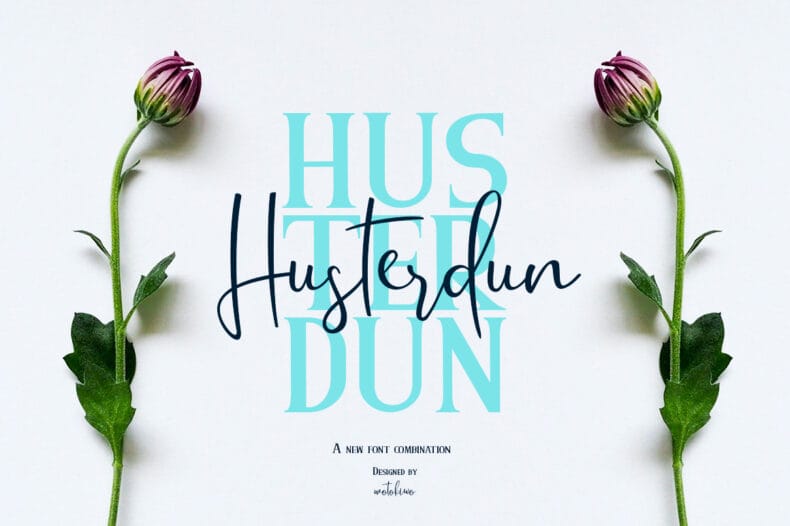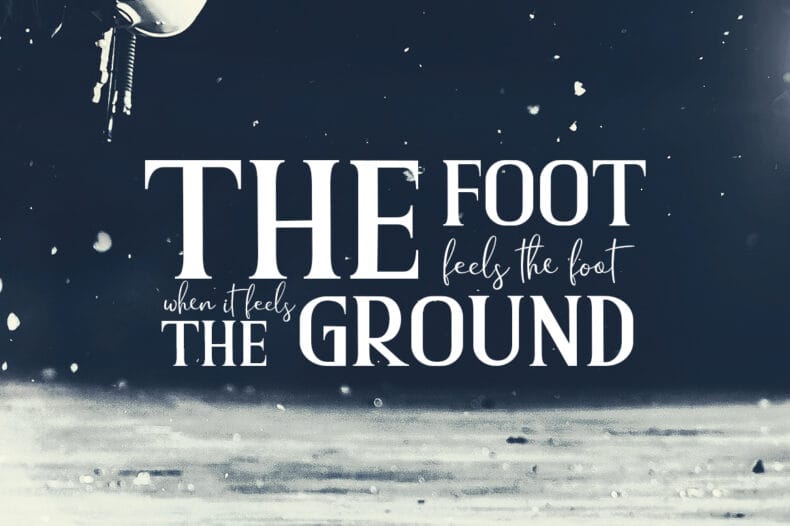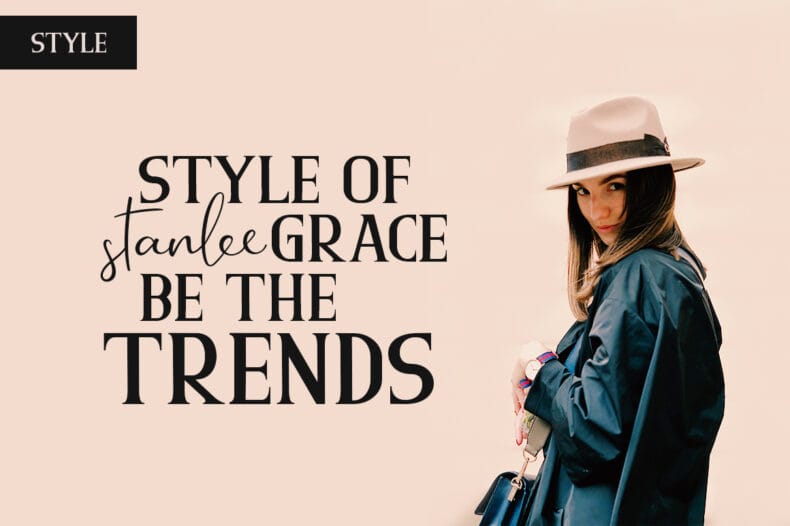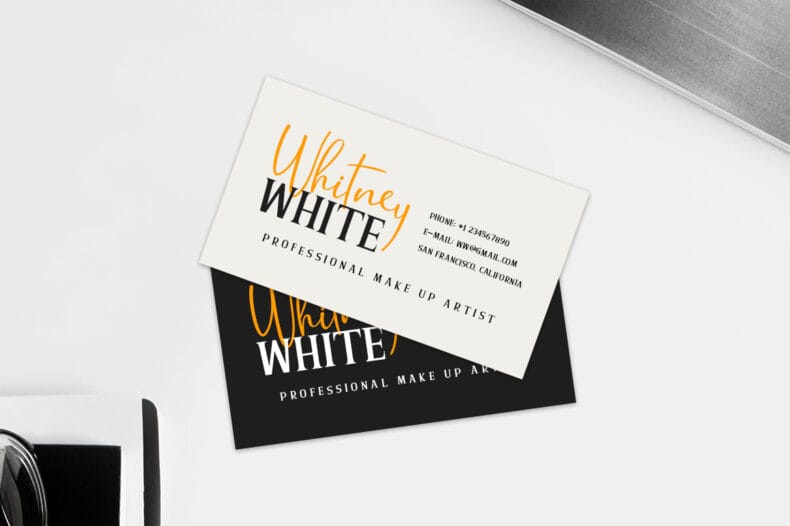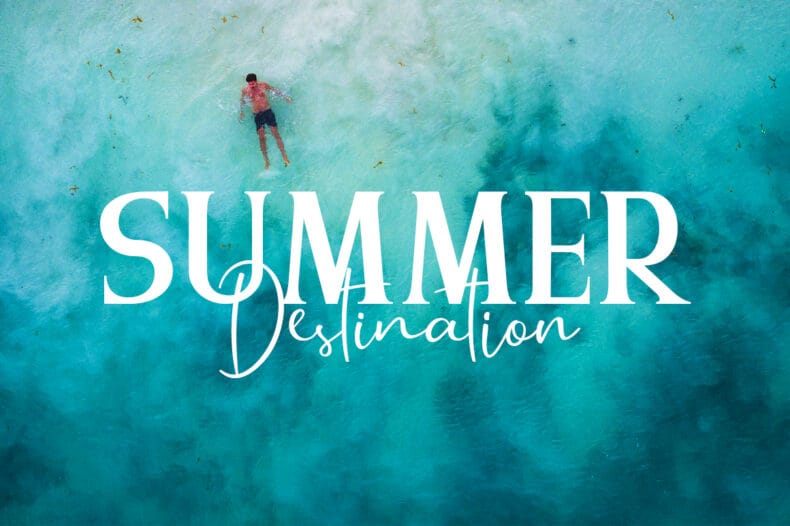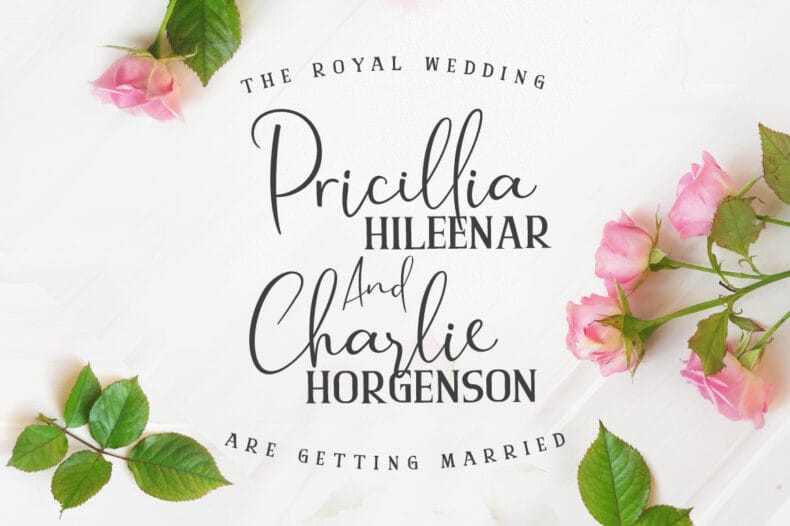
Husterdun pairs a clean script with an uppercase serif. The duo offers contrasting letterforms for wedding designs, brand presentations, and composed display typography.
Use Husterdun Serif to give a heading structure and Husterdun Script to add a handwritten accent. Reversing their roles can create a different balance in a wordmark concept, invitation, or product-label layout.
The script includes uppercase and lowercase letters, numerals, punctuation, ligatures, alternates, multilingual characters, and PUA encoding. The serif includes capitals, numerals, punctuation, and multilingual characters. Preview your wording in both faces to plan the hierarchy.